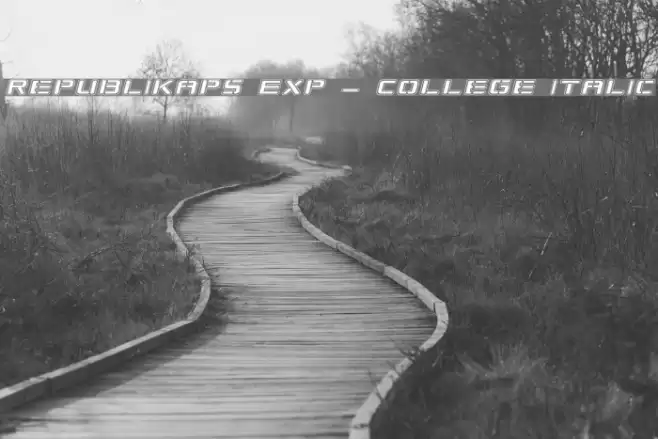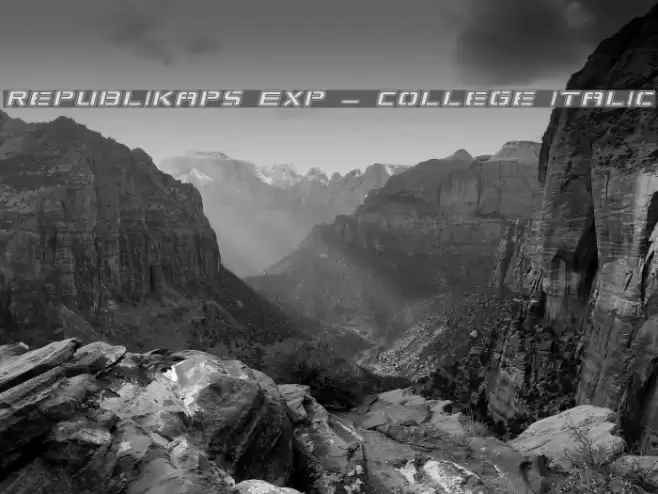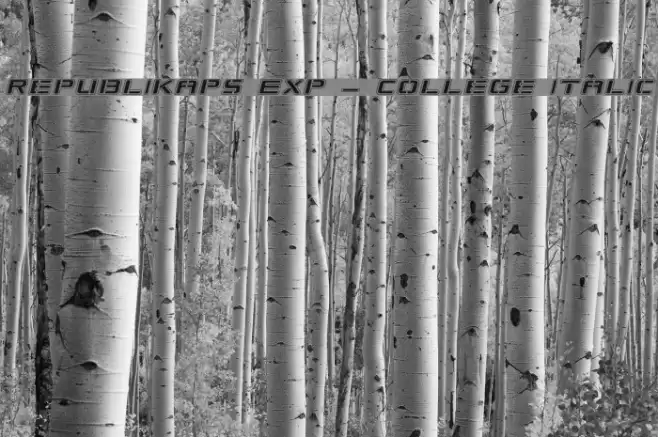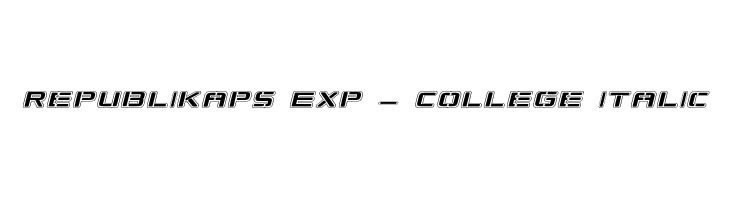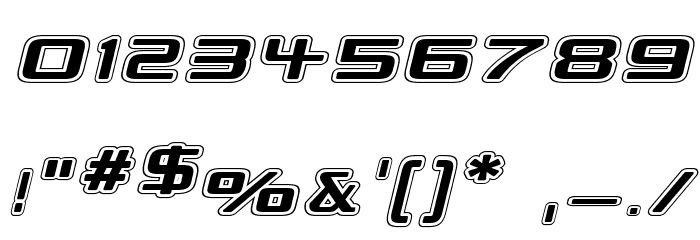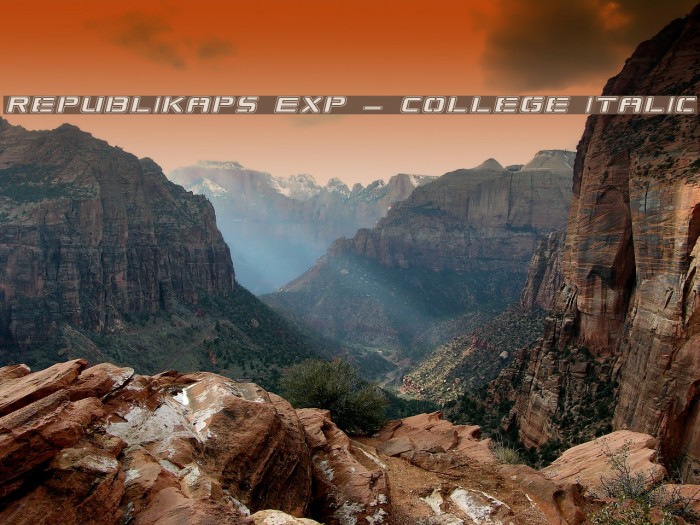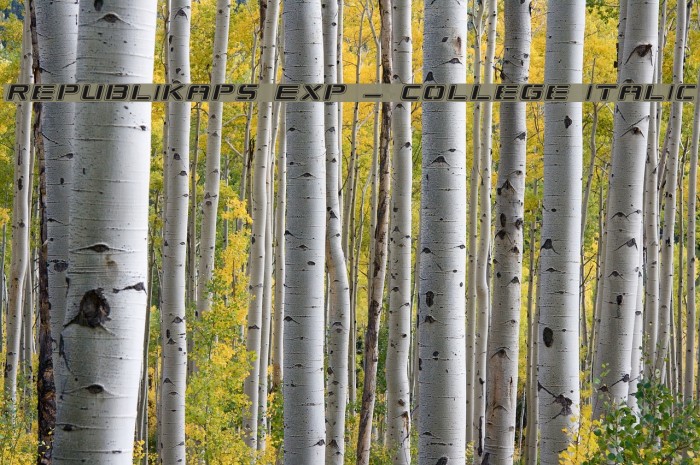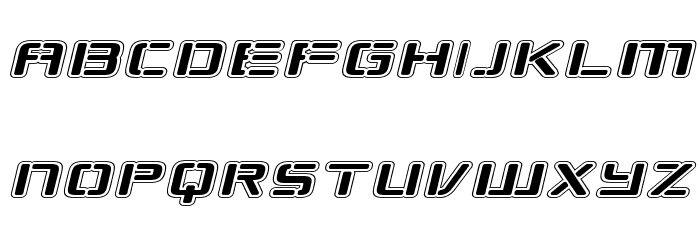
Republikaps Exp - College Italic Font
Republikaps Exp - College Italic Description
This font features a bold, italicized style with a distinct college-inspired aesthetic. The characters are outlined, giving them a three-dimensional appearance that stands out. The uppercase and lowercase letters maintain a consistent design, with rounded edges and a slight slant that enhances the italic effect. The numerals and special characters follow the same stylistic cues, ensuring uniformity across the typeface. The font's design is both modern and sporty, making it ideal for projects that require a dynamic and energetic look.
Bold, italicized font with a college-inspired, outlined style from Uncategorized fonts.
- Proposed Projects: Ideal for sports team branding, college event posters, merchandise designs, and dynamic headlines.
- Width: Expanded
- Overall Style: Modern, Sporty
- Use Case: Headlines, Logos, Merchandise